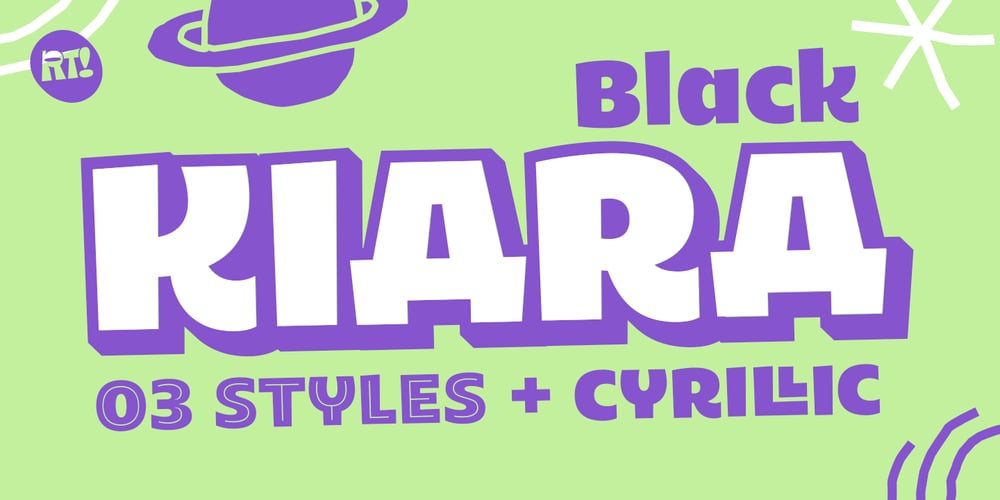
Kiara Black Font Family was designed by Rodrigo Araya Salas and published by RodrigoTypo. Kiara Black contains 3 styles and family package options. Kiara is an improved version of “Laika” in this font contains 4 styles to use together, contains the Cyrillic alphabet, ligatures and many Alternatives, especially for large titles